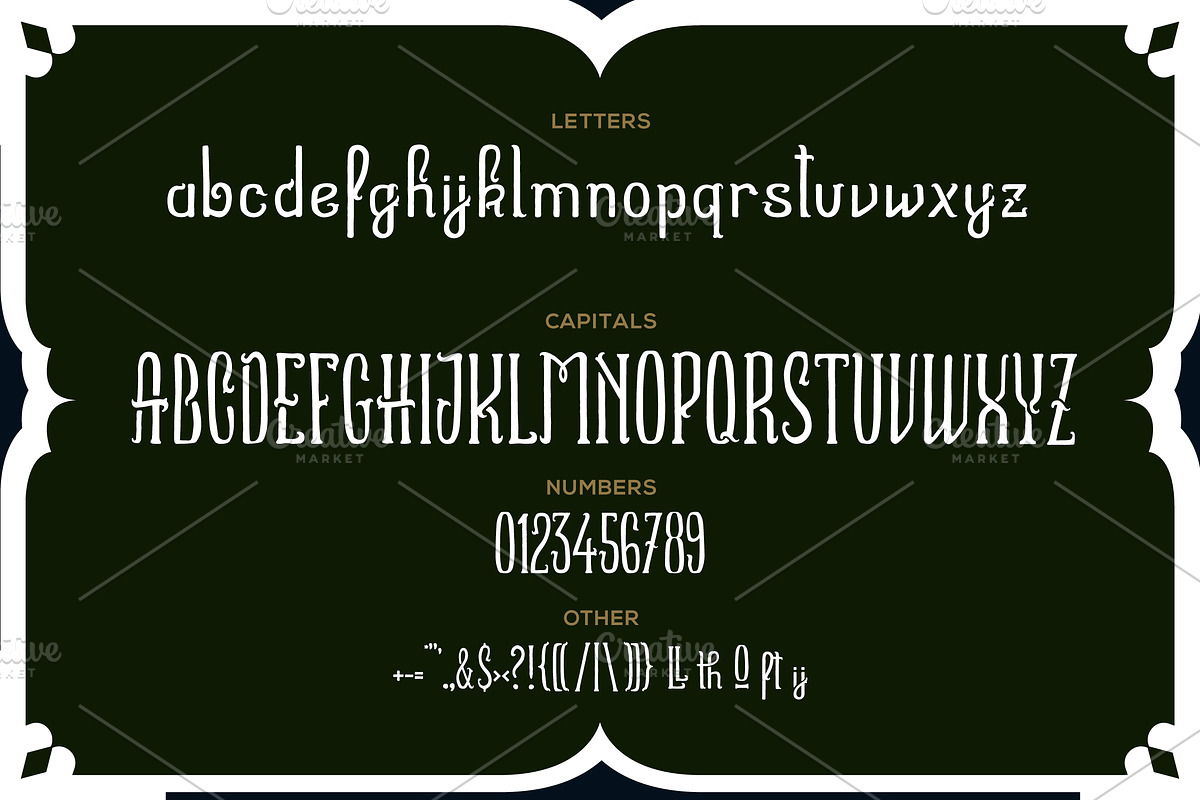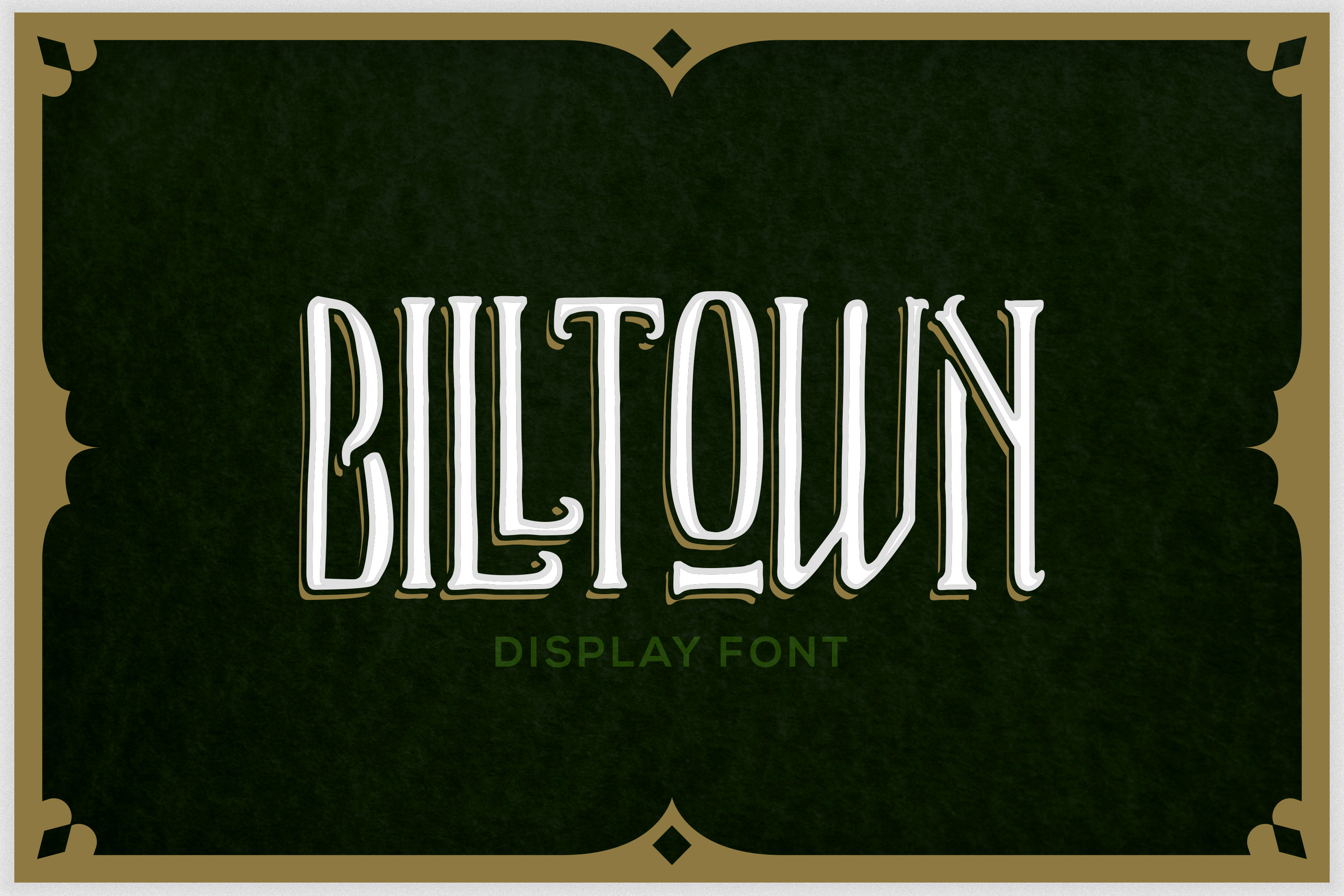
Billtown Typeface
Billtown typeface is a fun mix of hip and seriousness. It has a unique retro feel to it. The overall looking of this typeface is suitable for anyone who wants to achieve something effective and appealing.
- 26 upper case
- 26 lower case
- 6 Ligatures
- 0-9 Numbers
- Over 20 Glypshs